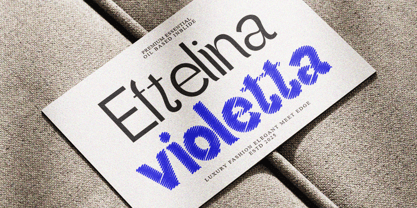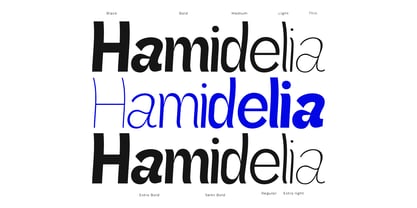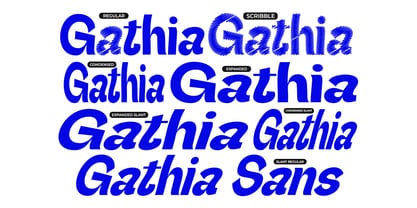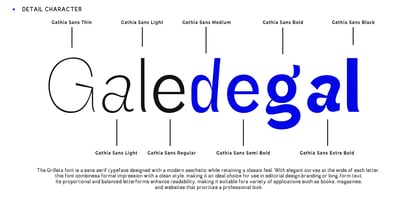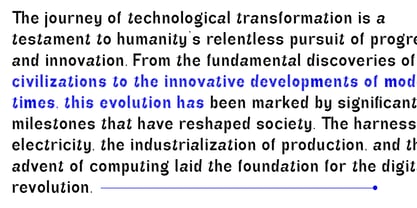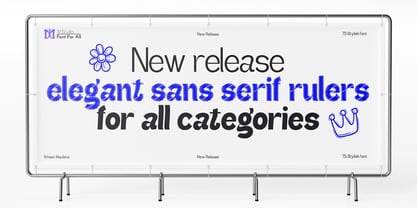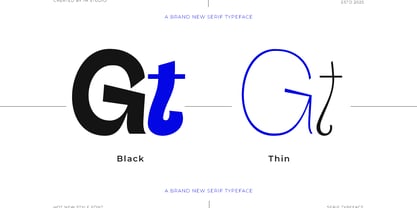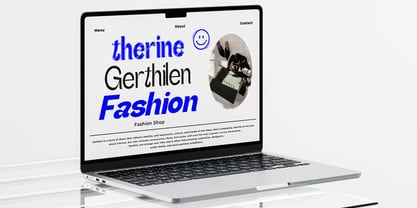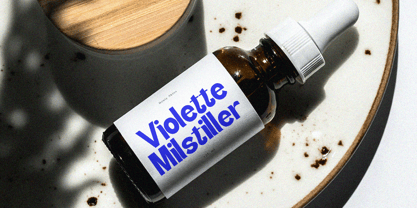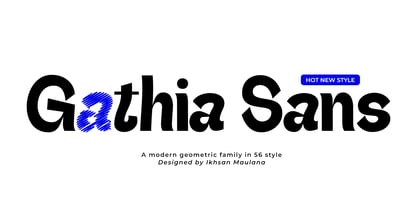
Gathia Sans
by IM Studio
The Gathia Sans Font Family was designed by Ikhsan Maulana and published by IM Studio. Gathia Sans contains 56 styles and family package options. More about this family
Gathia Sans | 56 Font Styles Modern Elegance, Timeless Simplicity Gathia Sans delivers the perfect blend of classic elegance and modern design. With an impressive array of 56 styles—including Slant, Expanded, Condensed, and Scribble—this versatile font provides exceptional flexibility for various applications such as branding, editorial, packaging, and digital design. Complete with elegant ligatures, advanced OpenType features, and comprehensive multilingual support, Gathia Sans stands out as the ideal choice for achieving a clean, professional, and sophisticated aesthetic in your projects.
Designers: Ikhsan Maulana
Foundry: IM Studio
Let me introduce myself, my name is Ikhsan Maulana. I am the owner of IM Studio Foundry which was founded in 2018. IM Studio is a font design studio based in Indonesia. Currently, I am fully pursuing my new passion. I fell in love with the world of writing, drawing letters, and love all forms of creativity. I love exploring and seeing how typography reflects a brand's personality. I want to continue to develop my creativity and use my passion to provide greater benefits for myself and the designer community. I created my first font in mid-2018. Since then, I have transformed my freelance business into Type Foundry. Founding IM Studio to help designers choose their projects.Thank you. Ikhsan Maulana